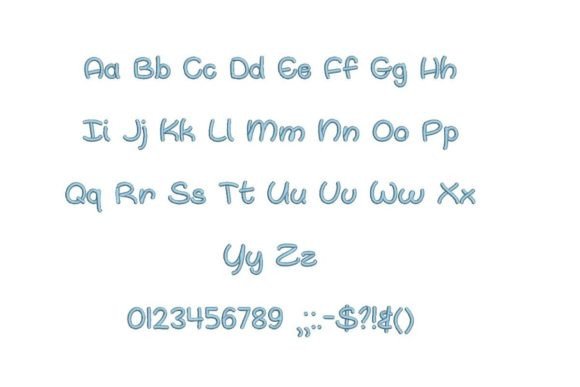
Oh Whale Embroidery Font
Dive into creativity with the charming “Oh Whale” embroidery font. Crafted to bring a touch of whimsy to your projects, this font is an ideal choice for adding a playful and nautical flair. Whether adorning textiles, garments, or creating personalized gifts, “Oh Whale” imparts a delightful charm. Let your imagination sail as you stitch captivating marine-inspired designs, capturing the essence of the ocean. Transform ordinary items into extraordinary nautical works of embroidery art. Start stitching today and embark on a sea of creativity!